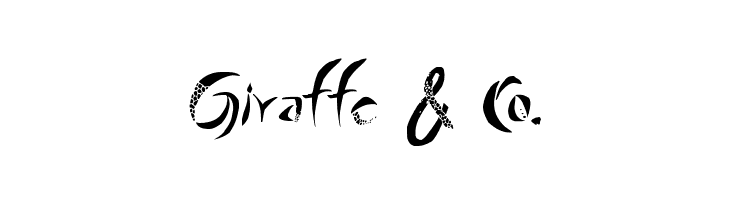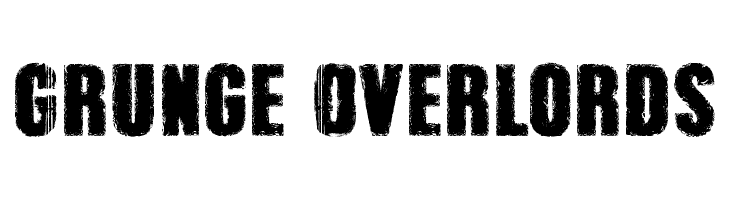
A bold, artistic font with a dripping paint effect, ideal for creative projects.
A bold, italic font with dynamic, thick strokes and a slightly condensed style.
A distressed, grungy font with a textured, worn appearance.
A bold, distressed font with a rugged, hand-drawn appearance.
A bold, hand-drawn font with a rough, edgy texture.
A bold, distressed font with a grunge aesthetic and rugged texture.
A bold, distressed font with a gritty, urban style.
An ornate, gothic-inspired font with intricate detailing and dramatic flair.
A bold, distressed font with a grunge, urban aesthetic.
A decorative and artistic font with intricate patterns and dynamic flow.